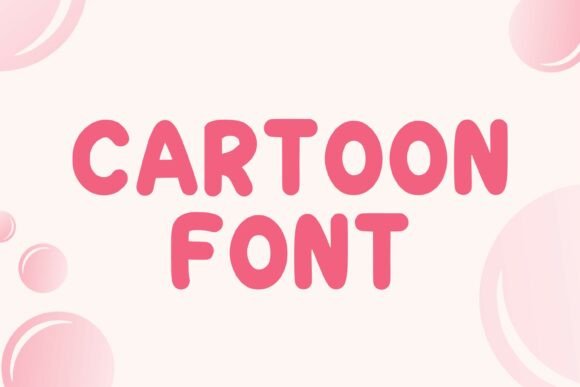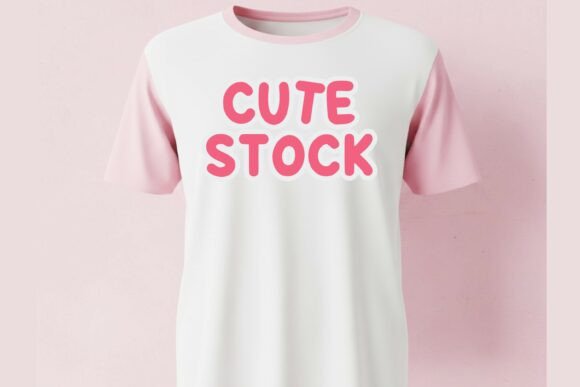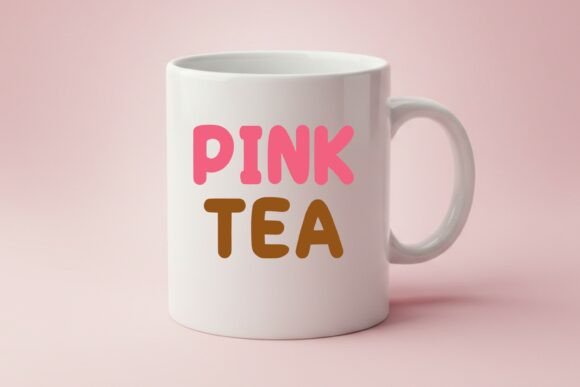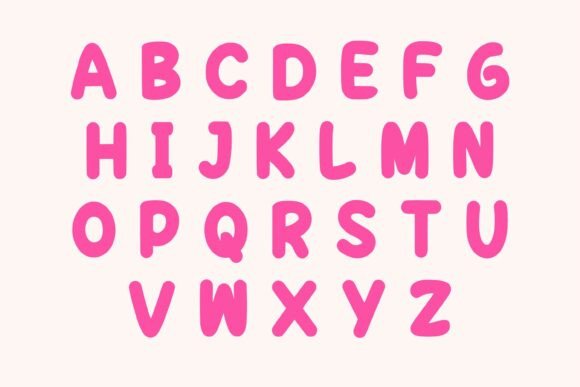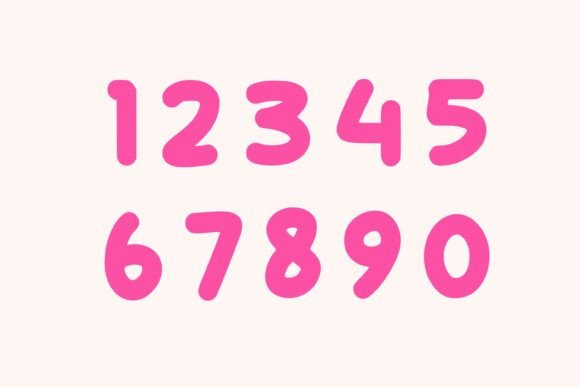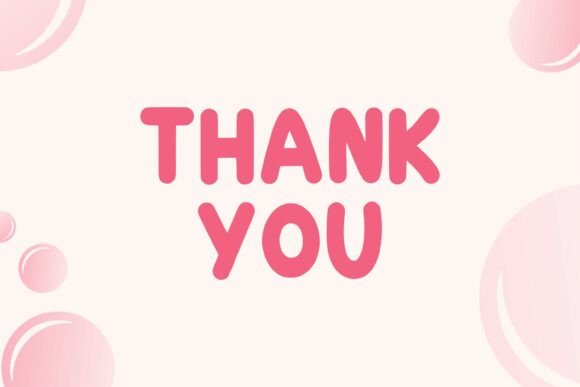
Bubble Up Your Creativity with the Bubble Honey Font
Have you ever been working on a project and just needed that one special touch to make it pop? For me, it’s always when I stumble upon the perfect font – one that brings a smile to my face and sets the tone for a fun and playful vibe. That’s exactly what the Bubble Honey Font does.
This adorable cartoon bubble font is designed to add a cheerful and friendly feel to any creative project. With its bold, rounded letterforms, it’s the perfect addition to kids designs, logos, stickers, posters, and so much more. Whether you’re going for a modern or retro-style design, the Bubble Honey Font is sure to bring a joyful and adorable touch that will capture your audience’s attention.
Bubble Honey Font Key Features
- Unique Characteristics: The font features a distinctive bubble-like design, creating a playful and whimsical atmosphere.
- Language Support: The font supports multiple languages, including Latin, Cyrillic, and Greek alphabets, making it a versatile choice.
- Font Style: The font is available in both regular and bold styles, allowing users to create contrast and emphasis in their designs.
Bubble Honey Font Review
Overall, I was pretty excited to dive into the Bubble Honey Font, but as I started working with it, I found some interesting things that worked well and some limitations that kept me from giving it a perfect score.
- The Bubble Honey Font has a unique and playful design that’s perfect for projects that need a touch of whimsy.
- The font is highly customizable, with a wide range of options for adjusting the size, color, and style.
- The font is well-suited for digital use, with crisp and clear rendering on various devices and screen sizes.
- The font can be a bit too playful for some projects, making it difficult to use in more serious or professional contexts.
- The font lacks a clear hierarchy, making it hard to use for longer blocks of text or complex layouts.
- The font is not optimized for print use, resulting in poor rendering on paper.
Overall, I think the Bubble Honey Font is a great choice for projects that need a fun and playful touch. However, it may not be the best choice for more serious or complex projects. With some careful planning and design considerations, this font can be a valuable addition to any designer’s toolkit.
Getting the Most Out of Bubble Honey Font
For best results, use the Bubble Honey Font in combination with bold or italic styles to create visual interest.
Experiment with different font sizes and colors to create a unique look.
The Bubble Honey Font is ideal for:
- Creative projects, such as invitations and social media graphics.
- Children’s products and packaging.
Alternatives to Bubble Honey Font
Luckiest Guy
Luckiest Guy is a modern sans-serif font that features a similar rounded feel to Bubble Honey Font. It’s perfect for creating a friendly and approachable atmosphere in digital designs. Compared to Bubble Honey Font, Luckiest Guy has a slightly more geometric shape, making it suitable for a wider range of applications.
Great Vibes is a modern script font that offers a more elegant and sophisticated look compared to Bubble Honey Font. It’s ideal for creating a luxurious and high-end feel in branding and advertising designs. While Great Vibes lacks the rounded feel of Bubble Honey Font, it makes up for it with its beautiful, flowing lines.
Amarante
Amarante is a handwritten font that features a unique, expressive style that’s perfect for creating a personal and emotive atmosphere in designs. Compared to Bubble Honey Font, Amarante has a more rustic and vintage feel, making it suitable for a wide range of creative projects.
Alex Brush is a modern brush script font that offers a more subtle and refined look compared to Bubble Honey Font. It’s ideal for creating a clean and elegant feel in branding and advertising designs. While Alex Brush lacks the rounded feel of Bubble Honey Font, it makes up for it with its beautiful, hand-drawn lines.